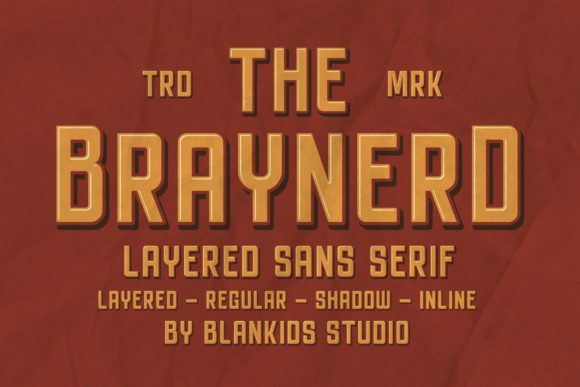
Braynerd Font: A Charming Sans Serif Font for Your Creative Projects
In the world of typography, fonts play a crucial role in conveying the message and tone of a design. With thousands of fonts available, finding the right one that resonates with your creative vision can be overwhelming. However, if you’re looking for a font that exudes charm, authenticity, and versatility, look no further than Braynerd Font. In this article, we’ll explore the features, benefits, and applications of Braynerd Font, and why it’s an excellent choice for your next design project.
What is Braynerd Font?
Braynerd Font is a sans serif font that boasts a unique and captivating charm. Its authentic feel makes it an excellent choice for designers who want to add a touch of personality to their work. The font’s clean lines, subtle curves, and balanced proportions create a visually appealing aesthetic that’s both modern and timeless.
Key Features of Braynerd Font
- Authentic feel: Braynerd Font has a genuine and heartfelt feel that resonates with audiences.
- Versatility: The font can be used in a wide range of applications, from logos to posters, and more.
- Clean lines: Braynerd Font features clean lines and subtle curves, making it easy to read and visually appealing.
- Balanced proportions: The font’s balanced proportions ensure that it looks great in various sizes and resolutions.
Applications of Braynerd Font
One of the standout features of Braynerd Font is its versatility. The font can be used in a wide variety of applications, including:
- Logo design: Braynerd Font is an excellent choice for logo design, as its unique charm and character can help your brand stand out.
- Posters and flyers: The font’s clean lines and authentic feel make it perfect for creating eye-catching posters and flyers.
- Business cards: Braynerd Font can add a touch of personality to your business cards, making them more memorable.
- Digital media: The font can be used in digital media, such as social media graphics, email headers, and more.
Benefits of Using Braynerd Font
So, why should you choose Braynerd Font for your next design project? Here are some benefits of using this charming sans serif font:
- Unique character: Braynerd Font has a distinct character that can help your design stand out from the crowd.
- Easy to read: The font’s clean lines and balanced proportions make it easy to read, even in small sizes.
- Versatile: Braynerd Font can be used in a wide range of applications, making it a great addition to your font library.
- Authentic feel: The font’s authentic feel can help you connect with your audience on a deeper level.
Tips and Tricks for Using Braynerd Font
To get the most out of Braynerd Font, here are some tips and tricks to keep in mind:
- Experiment with font sizes: Braynerd Font looks great in various sizes, so don’t be afraid to experiment and find the perfect size for your design.
- Pair with other fonts: The font pairs well with other sans serif fonts, so feel free to experiment with different font combinations.
- Use it for headlines and body text: Braynerd Font is suitable for both headlines and body text, making it a great choice for long-form content.
In conclusion, Braynerd Font is a charming sans serif font that offers a unique blend of authenticity, versatility, and charm. Its clean lines, subtle curves, and balanced proportions make it an excellent choice for a wide range of applications, from logos to posters and more. With its easy-to-read design and authentic feel, Braynerd Font is sure to become a staple in your font library.